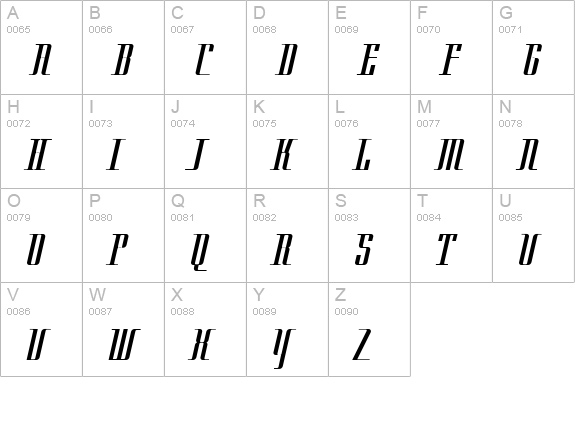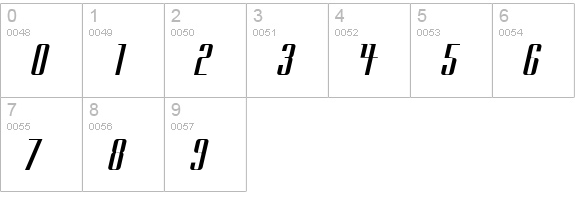
Cily Font Details
Introducing Cily font, a modern and elegant typeface that brings a touch of sophistication to any project. With its sleek lines and stylish curves, Cily exudes a sense of class and refinement. This versatile font is perfect for a wide range of design applications, from branding and advertising to packaging and signage. What sets Cily font apart is not only its timeless aesthetic appeal, but also the fact that it is completely free to download. Yes, you read that right - Cily font is freely available to download at FontsMarket.com. So whether you're a graphic designer looking to add a new font to your collection or a business owner in need of a fresh look for your branding, Cily font is the perfect choice. Don't miss out on this opportunity to elevate your design projects with the stunning beauty of Cily font. Download it today and experience the difference it can make in your creative endeavors.